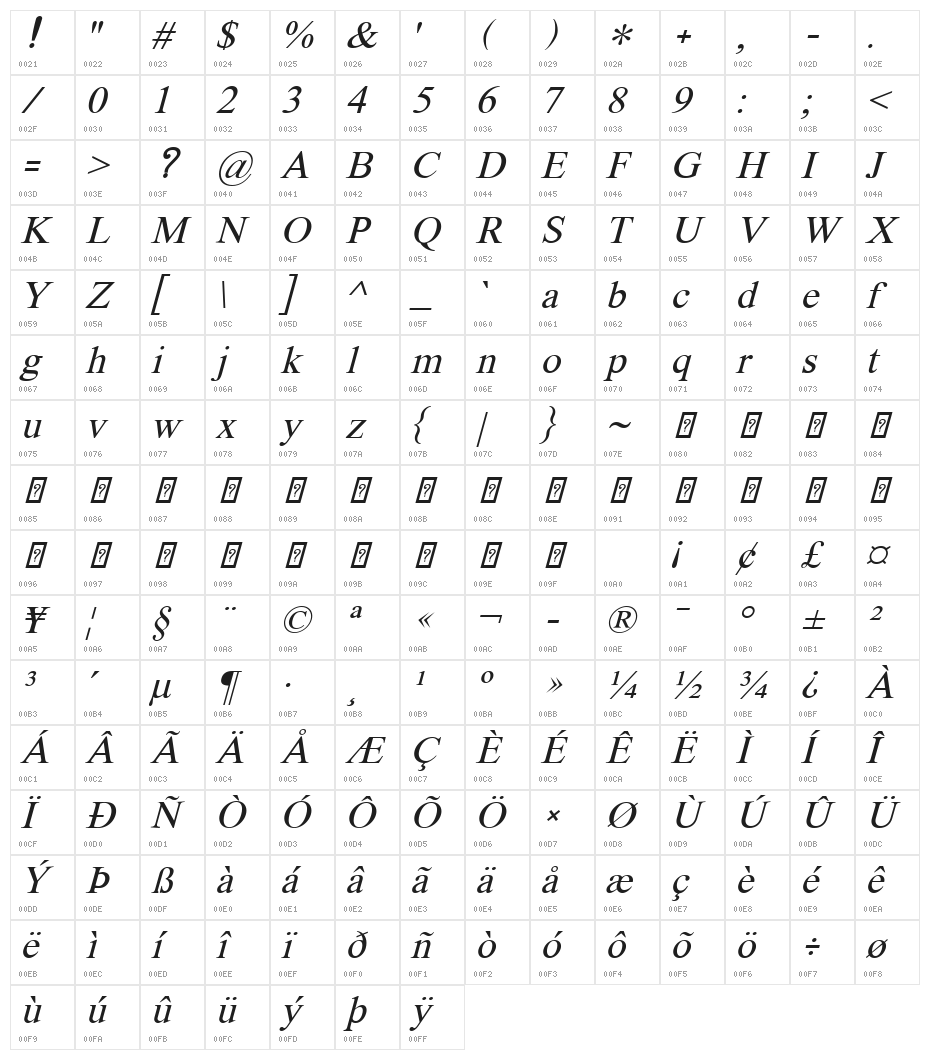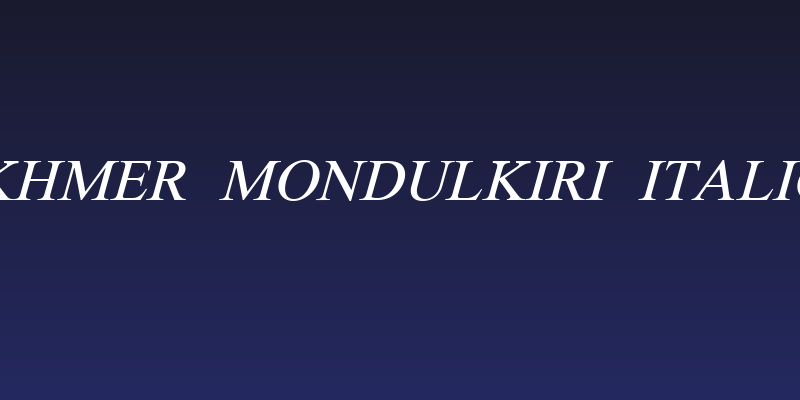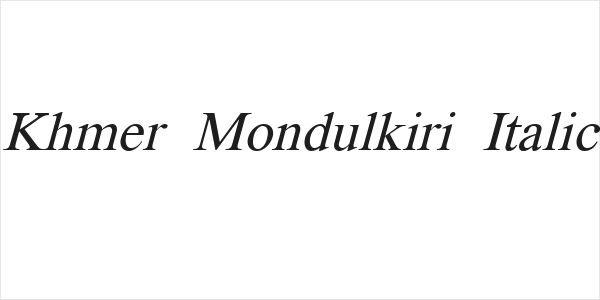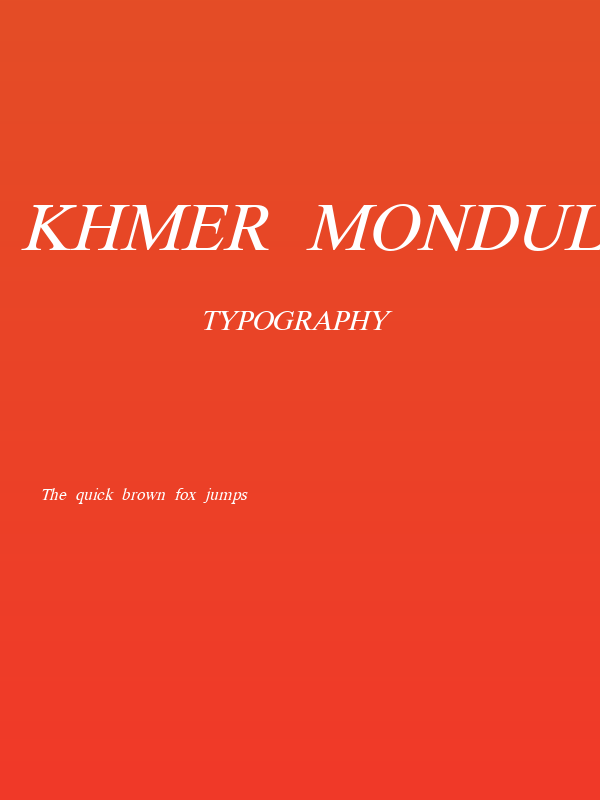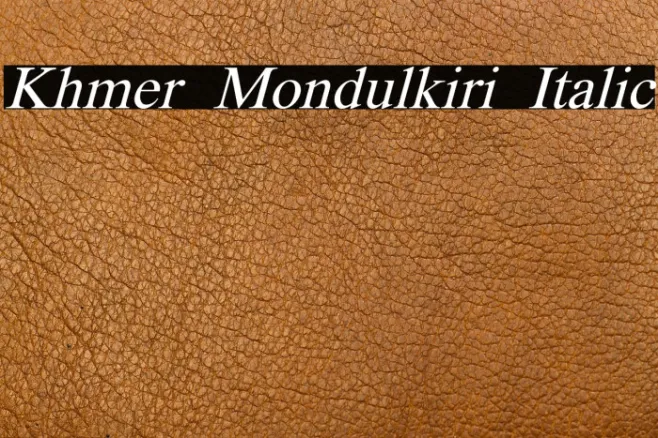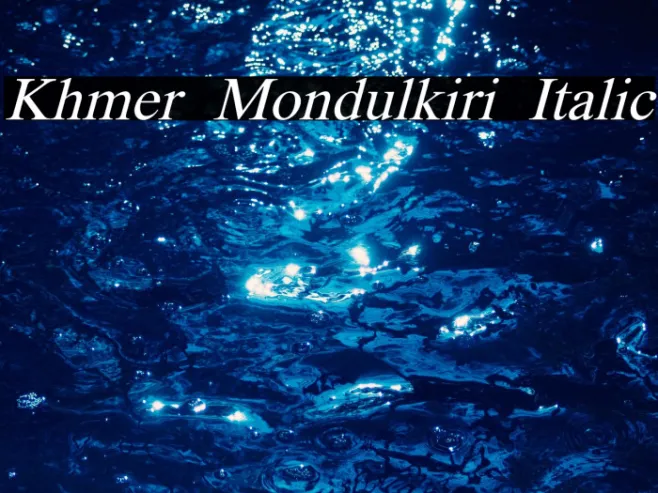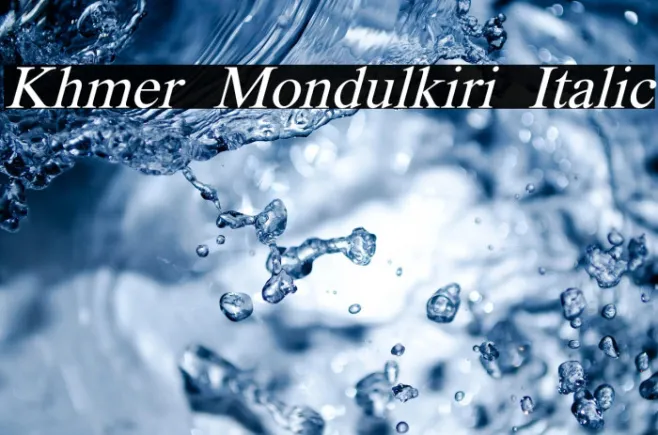
Khmer Mondulkiri Italic Font
Khmer Mondulkiri Italic Description
This font features an elegant italic style with a classic serif design. The characters are gracefully slanted, providing a sense of movement and sophistication. The serifs are pronounced, adding a traditional touch, while the overall form maintains a modern elegance. The uppercase letters are tall and commanding, while the lowercase letters are more delicate, offering a nice contrast. Numerals are clear and well-defined, ensuring readability. Special characters are included, maintaining the font's cohesive style.
| Proposed Projects | Ideal for formal invitations, elegant branding, book covers, and editorial design. |